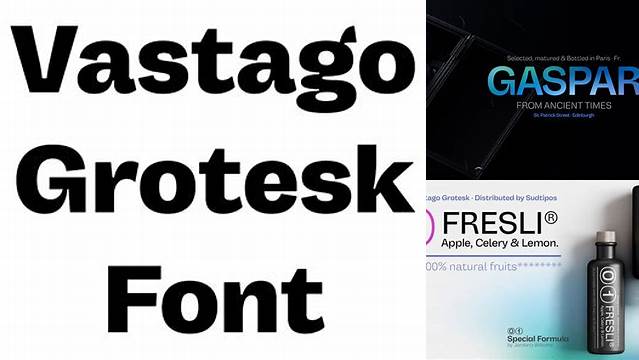
Hey guys, are you on the hunt for a font that screams boldness and grabs attention? Look no further because we're diving headfirst into the world of Vastago Grotesk Bold, and guess what? You can snag it with a free download! This isn't just any font; it's a statement. Whether you're a designer, a blogger, or just someone who appreciates a good typeface, Vastago Grotesk Bold is a fantastic choice. It's got that perfect balance of modern and edgy, making it ideal for a wide range of projects. Let's break down why this font is a must-have in your collection and how to get your hands on it without spending a dime. So, buckle up, and let's explore the awesomeness of Vastago Grotesk Bold!
What Makes Vastago Grotesk Bold Special?
Alright, let's get down to brass tacks. Vastago Grotesk Bold isn't just about being big and blocky; it's about making a statement. This font is designed to be seen. Think of it as the typography equivalent of a power suit – confident, impactful, and always ready to make a statement. The bold weight ensures that your text stands out, whether you're designing a poster, a website header, or even a social media graphic. The clarity and legibility of Vastago Grotesk Bold are also worth mentioning. While it’s a bold font, it doesn’t sacrifice readability. This is super important because you want people to actually read what you're writing, right? The design of the letters is clean and modern, avoiding any unnecessary flourishes that might distract from the message.
This font is perfect for headlines, titles, and any text that needs to grab immediate attention. Imagine using it for a movie title, a website banner, or even a logo. Its strong presence adds instant authority and visual appeal. The versatility of Vastago Grotesk Bold is another huge plus. It works well across different design styles, from minimalist to more complex layouts. You can pair it with a softer font for body text to create a balanced look or go all-in with bold statements. Plus, the font is available in various formats, making it compatible with almost any design software or operating system you might be using. The impact this font can have is significant. Think about the last time you saw a design that really caught your eye. Chances are, the typography played a huge role. Vastago Grotesk Bold gives you the same power, allowing you to create designs that resonate with your audience and leave a lasting impression. It is also frequently updated with new versions and enhancements. You will also find other variants such as regular, italic, and more. So, by having this, you can get the complete collection for all your projects.
Using Vastago Grotesk Bold Effectively
Alright, you’ve got the font, now what? Using Vastago Grotesk Bold effectively is about more than just typing words. It's about understanding how the font works and how to best use it to achieve your design goals. First things first: Think about the context. Where are you using the font? Is it for a headline, a logo, or body text? Vastago Grotesk Bold is best suited for headlines and display text where you want to capture immediate attention. Avoid using it for long paragraphs of text, as the bold weight can be tiring to read for extended periods. Contrast is key. Pair Vastago Grotesk Bold with a lighter, more readable font for body text. This creates a visual hierarchy that guides the reader's eye and makes your content more engaging. Consider the overall design. Does your design have a modern, minimalist feel? Vastago Grotesk Bold fits perfectly. Is it more traditional? You might want to experiment with different pairings to achieve the right balance. Spacing and kerning are also super important. Ensure the spacing between letters (kerning) and the spacing between lines of text (leading) is appropriate for the font. Tight spacing can make the font look cramped, while too much space can make it look disconnected. Experiment with different settings until you find what looks best. Color is another factor. The bold weight of Vastago Grotesk Bold works well with both light and dark backgrounds. However, consider the color contrast to ensure readability. High contrast (e.g., white text on a black background) is generally best for maximum impact. Finally, experiment! Don’t be afraid to try different sizes, weights, and styles to see what works best for your project. The best way to learn is by doing, so play around with the font and see what you can create. You may want to try using it on different projects. The more familiar you become with its features and characteristics, the better equipped you’ll be to use it creatively and effectively.
Common Uses and Examples
So, where can you actually see Vastago Grotesk Bold in action? This versatile font is used in a variety of applications, making it a go-to choice for designers and creatives. Let’s explore some common uses and examples.
- Website Headers: Websites often use Vastago Grotesk Bold in their header sections to make a strong first impression. The bold font grabs the viewer's attention and sets the tone for the rest of the content. You might see it used for the site’s name, a catchy tagline, or a prominent call to action. The clarity and boldness of the font make it ideal for these purposes.
- Posters and Flyers: When it comes to posters and flyers, Vastago Grotesk Bold is a powerhouse. It's perfect for headlines, event details, and any text that needs to stand out. Whether you're promoting a concert, a sale, or a community event, this font ensures your message is seen. The strong visual impact makes it ideal for grabbing attention in crowded spaces.
- Social Media Graphics: Social media is all about visual appeal, and Vastago Grotesk Bold is your friend here. Use it for creating eye-catching posts, ads, and cover photos. The font’s bold weight and modern design are perfect for platforms like Instagram, Facebook, and Twitter. You can use it to highlight key messages, announce promotions, or create shareable quotes.
Conclusion: Embrace the Boldness!
So, there you have it, folks! Vastago Grotesk Bold is a fantastic font that can take your designs to the next level. With its bold presence, modern design, and versatility, it's a great choice for headlines, logos, and social media graphics. The best part? You can download it for free! Just remember to download from a trusted source, review the license, and follow the installation instructions. Once you've got it installed, start experimenting! Play around with different sizes, colors, and pairings to see what you can create. Embrace the boldness of Vastago Grotesk Bold, and watch your designs stand out. Happy designing!